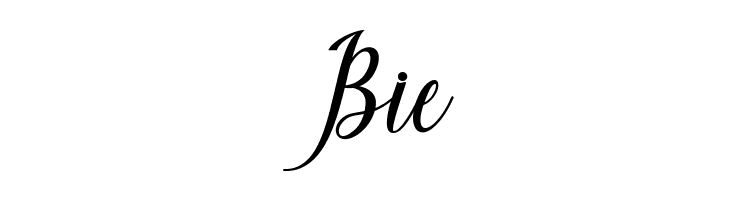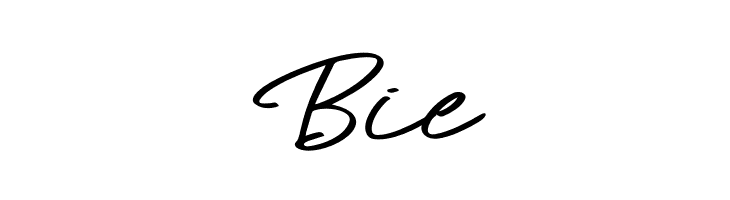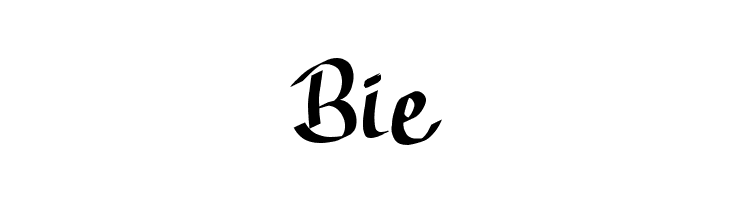
• Calligtastrophe
( Fonts by Evan Tetreault )
A bold, expressive font with a hand-drawn, artistic style.
• Calligula
• Calling Loves Script
A stylish and elegant script font with smooth, flowing strokes.
• Calliope Script Calliope Script
An elegant, flowing script font with a handwritten style.
• CallisaScript
An elegant script font with flowing, cursive letters and refined flourishes.
• CallpediaScriptDemo
( Apon Bahrainy - creativemarket.com/stipline.id )
A dynamic and elegant script font with flowing, cursive design.
• CallyScript
A bold, calligraphic font with high contrast and expressive strokes.
• Calton Elegance Script
An elegant script font with flowing lines and graceful curves, ideal for sophisticated designs.
• Camella Beauty Script
A modern, elegant script font with flowing, cursive characters.
• Camille Script
An elegant script font with flowing, interconnected characters and a sophisticated style.